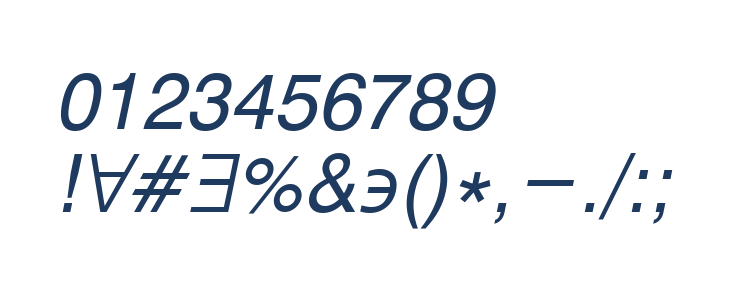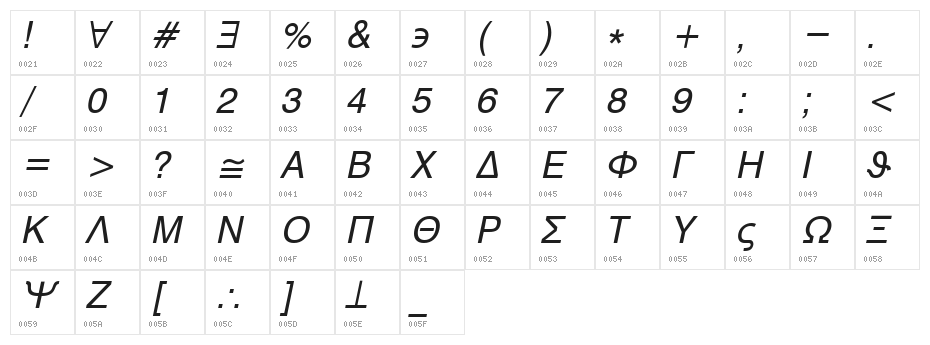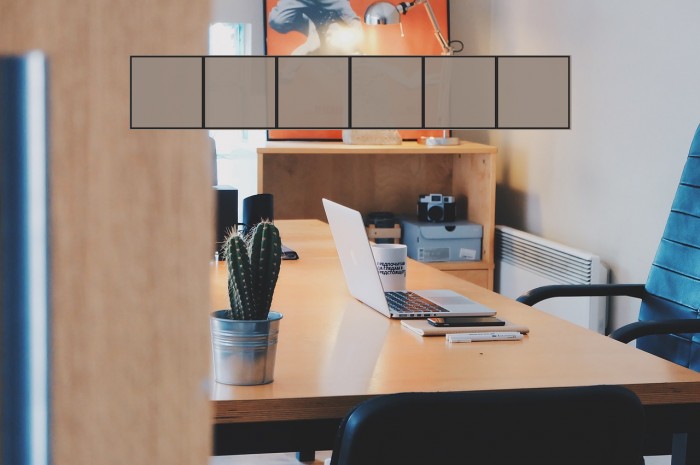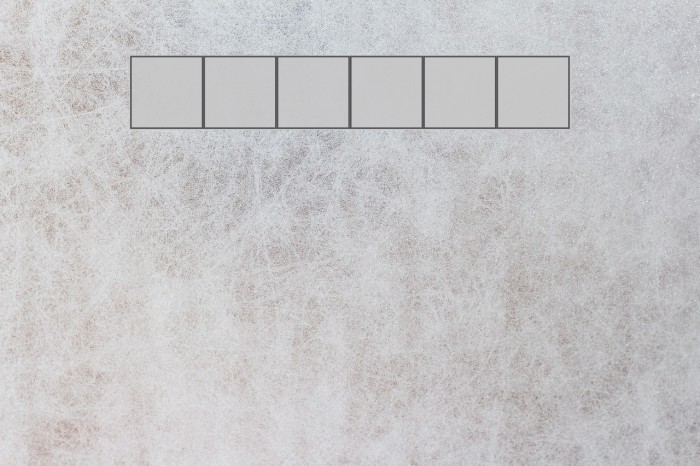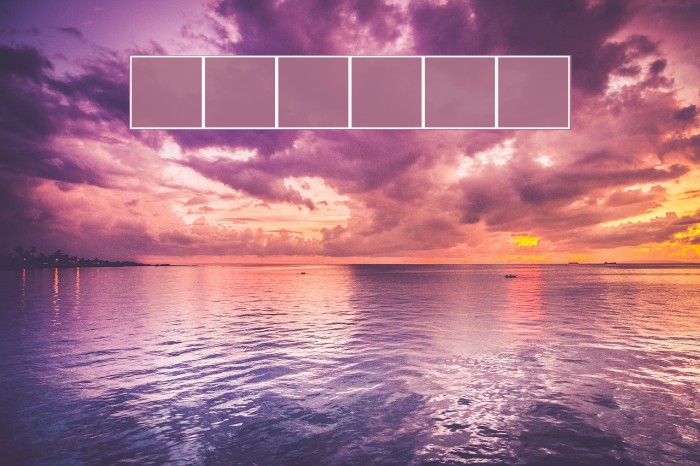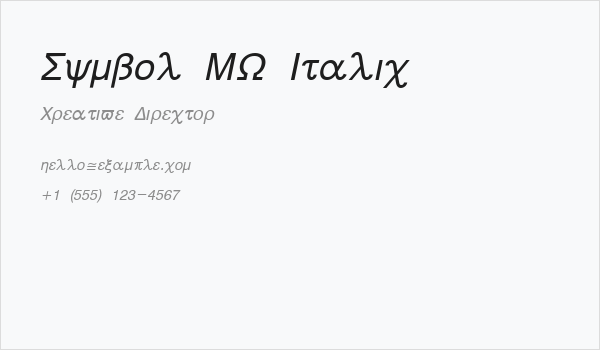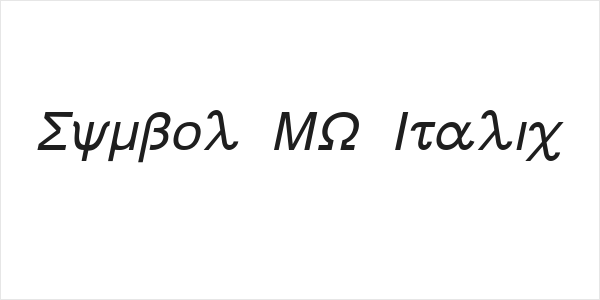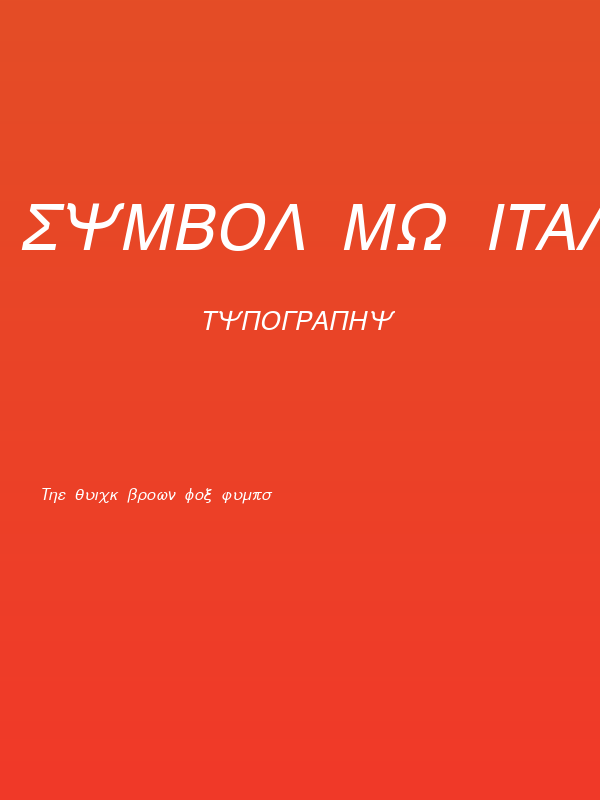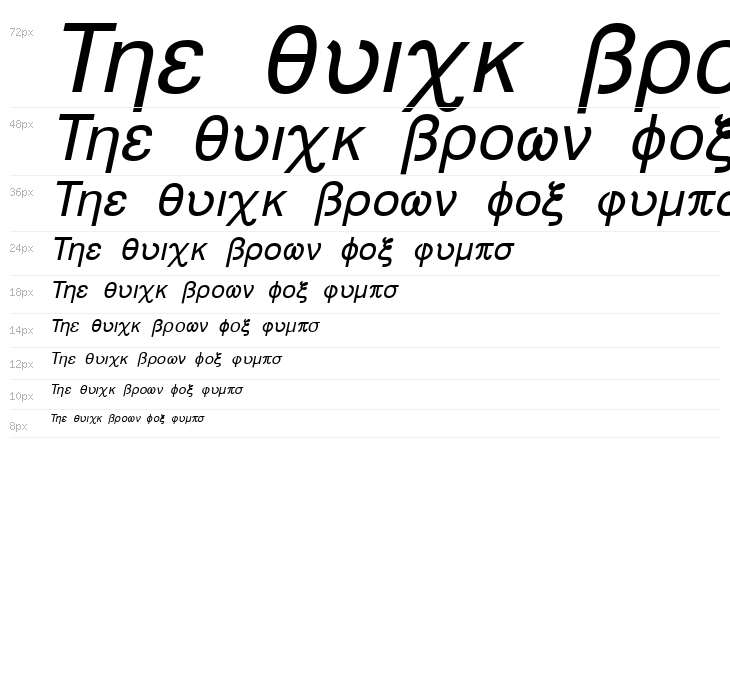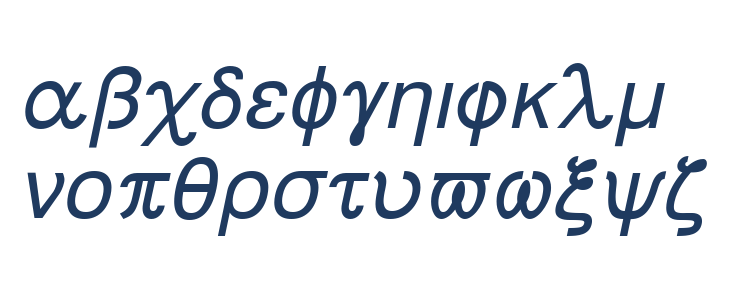
Symbol MW Italic Font
Symbol MW Italic Description
This font features a clean and modern design with a slight italic slant, giving it a dynamic and elegant appearance. The characters are well-proportioned and maintain a consistent stroke width, contributing to a balanced and harmonious look. The font includes a full set of uppercase and lowercase letters, numerals, and a selection of special characters, making it versatile for various applications. Its simplicity and clarity make it suitable for both digital and print media, ensuring readability across different sizes and formats.